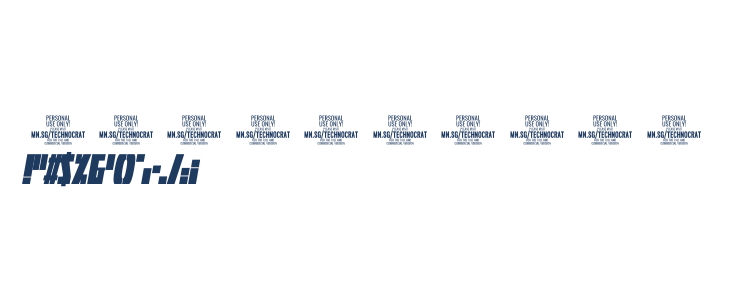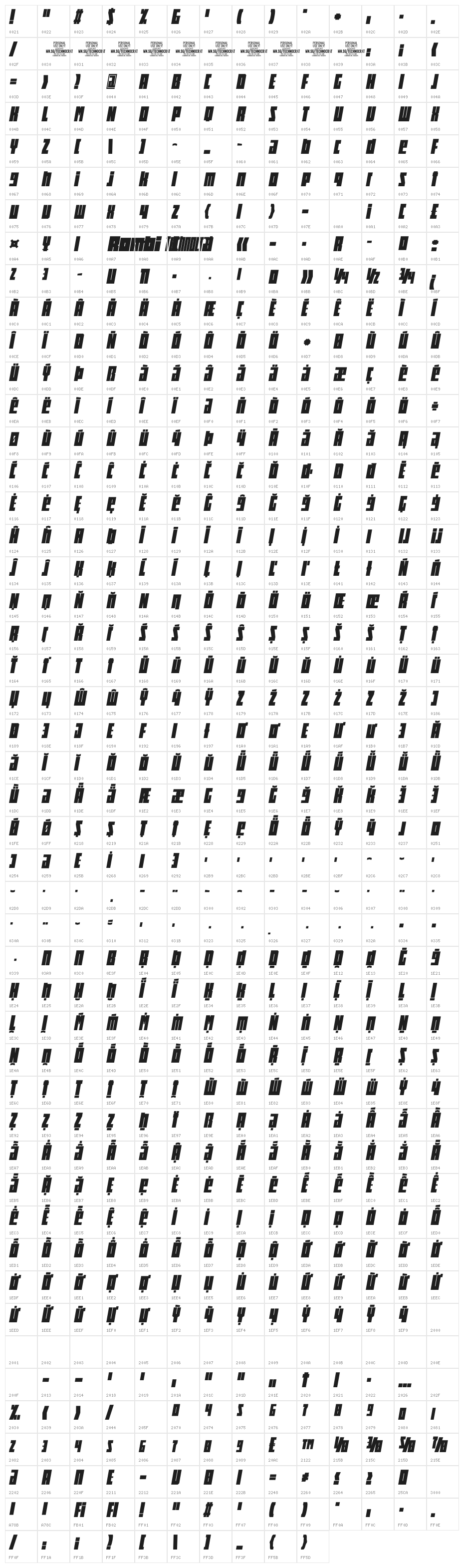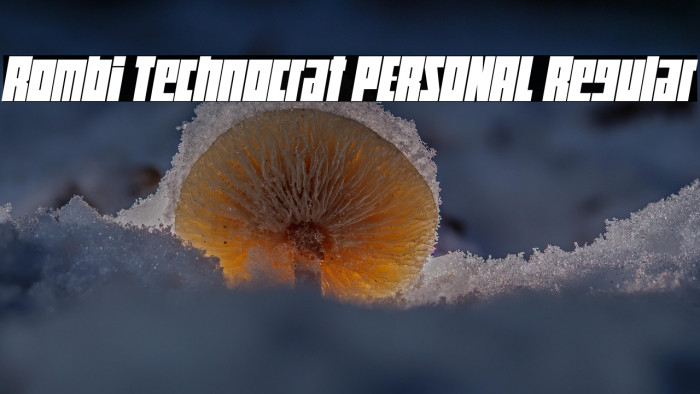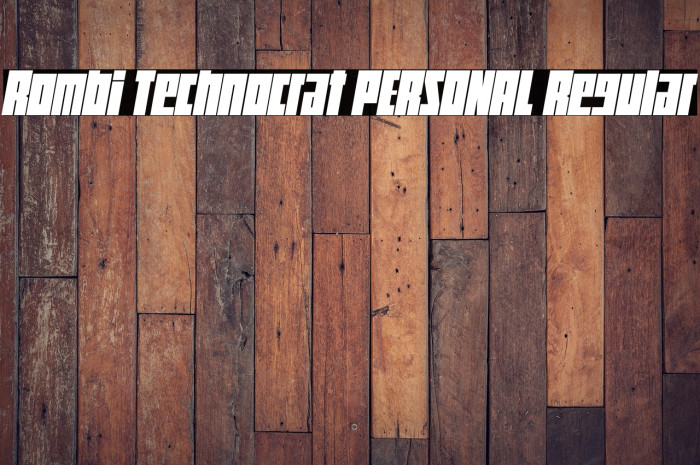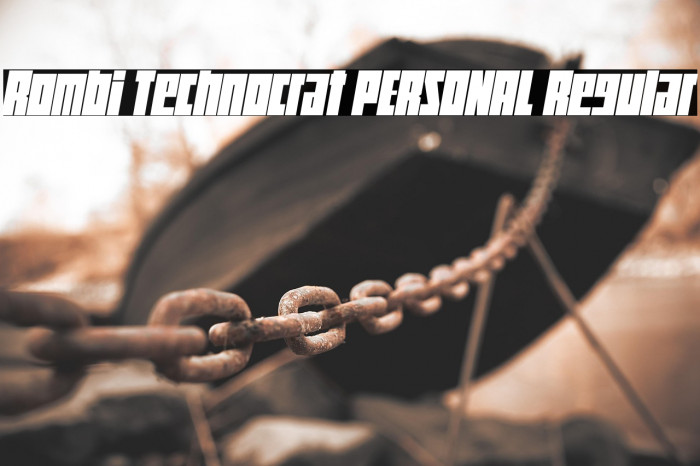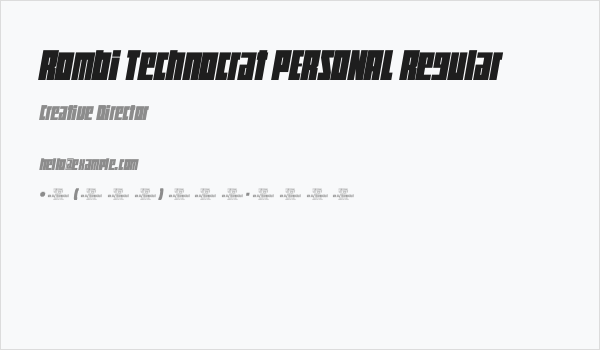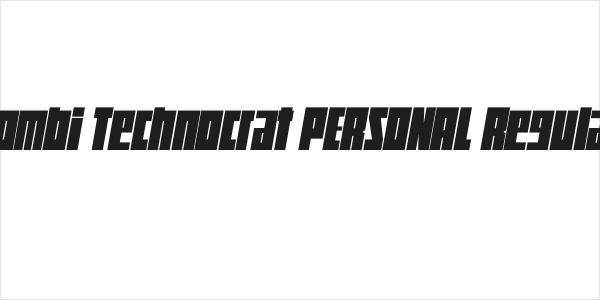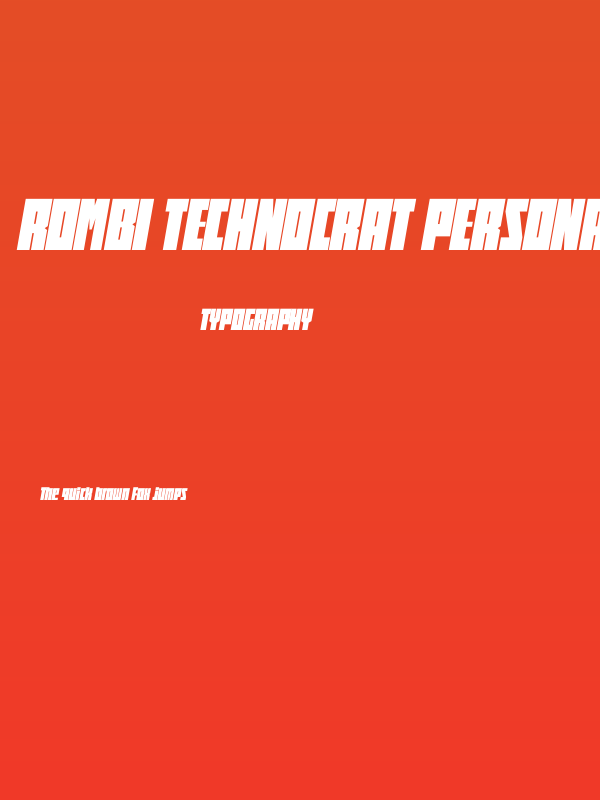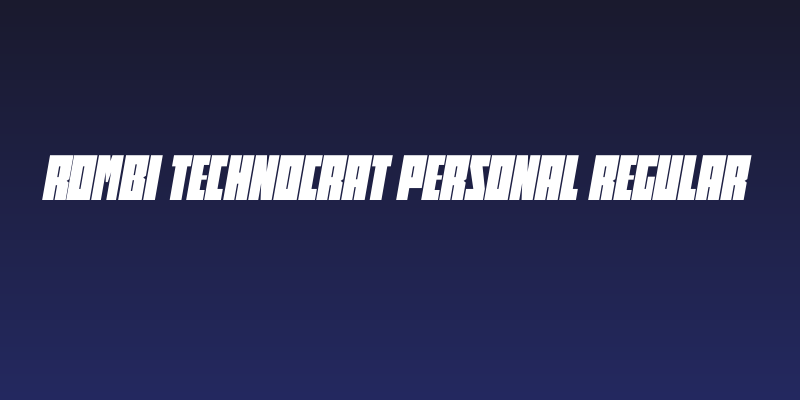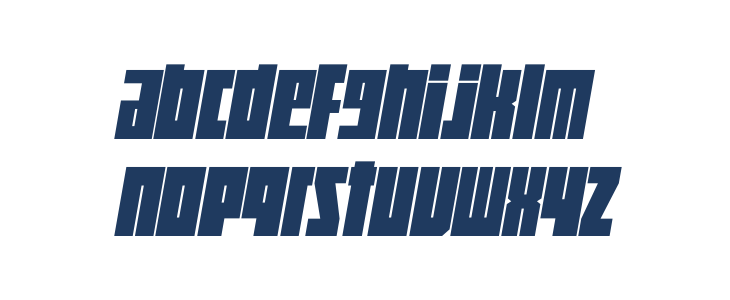
Rombi Technocrat PERSONAL Regular Font
Rombi Technocrat PERSONAL Regular Description
This font features a bold and angular design, characterized by its geometric and futuristic appearance. The letters are sharply cut with a distinct slant, giving them a dynamic and forward-moving feel. The uppercase and lowercase characters maintain a consistent style, with wide, block-like forms that convey strength and modernity. The numerals and special characters follow the same design principles, ensuring uniformity across all glyphs. This font's unique style makes it stand out, suitable for projects that require a strong visual impact.
| Proposed Projects | Ideal for technology branding, sci-fi themed projects, video game titles, and modern posters. |